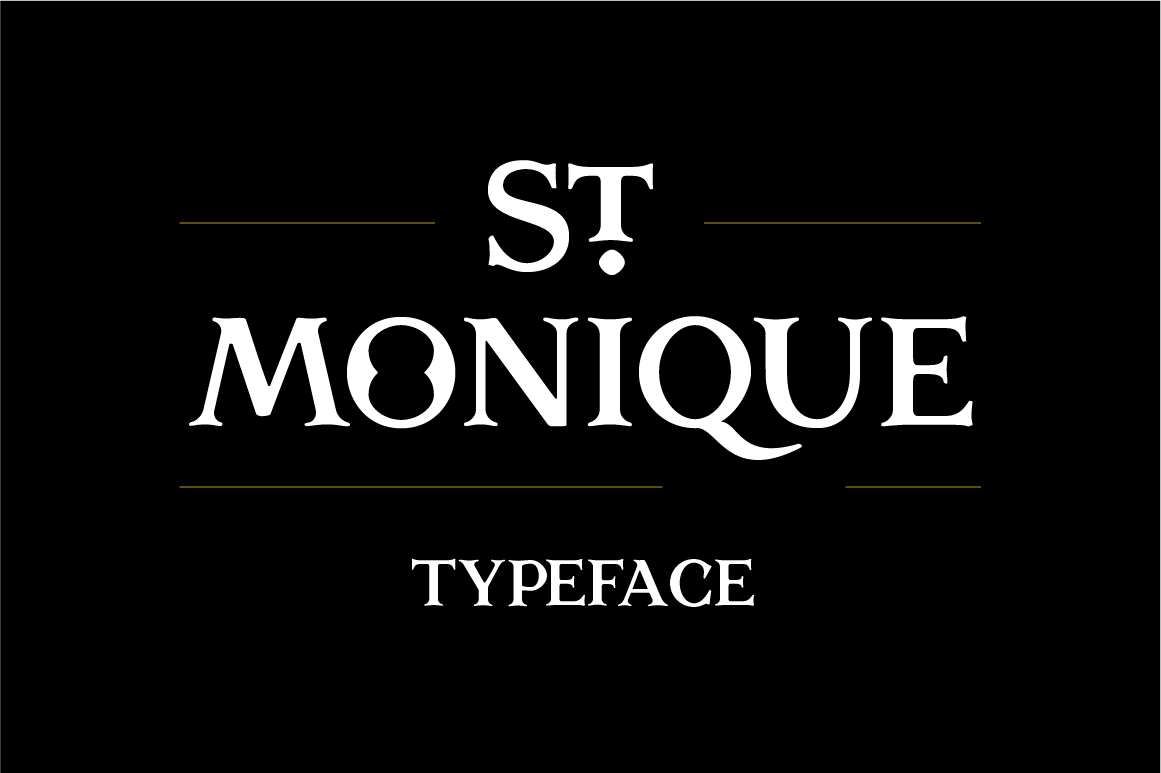
St. Monique Typeface
St. Monique is a display typeface inspired by medieval typography and visual motifs. Serifs and subtle details were designed to evoke the medieval feeling while keeping the typeface clean and contemporary.